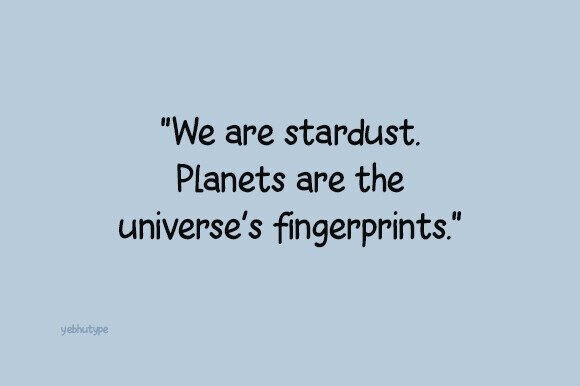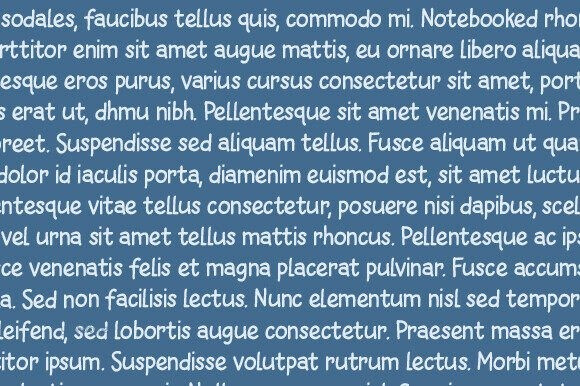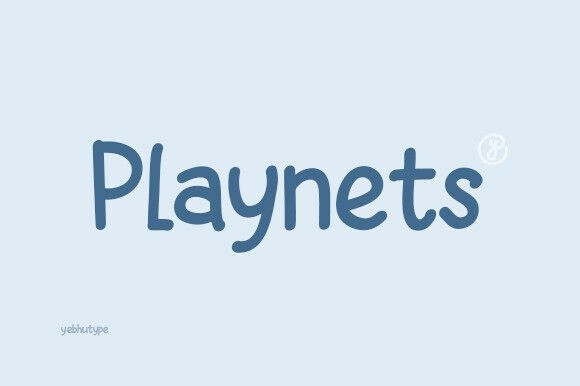
Playnets Font
Playnets Font, a lively and whimsical typeface designed to spark joy, creativity, and wonder in every character. Inspired by the boundless imagination of childhood and the playful spirit of adventure, Playnets is more than a font—it’s a gateway to storytelling, learning, and fun. With its cheerful curves, bouncy rhythm, and friendly design, this typeface is perfect for projects that aim to captivate young hearts and minds while resonating with the young at heart.